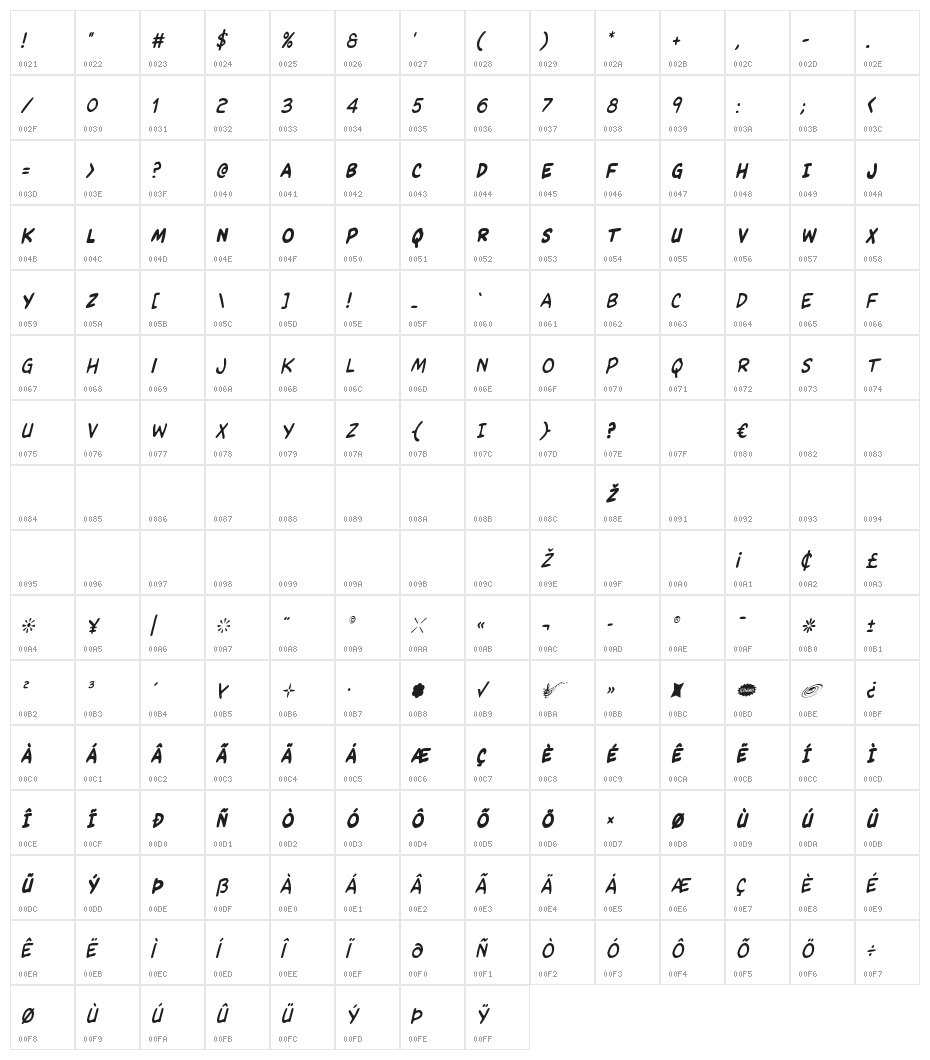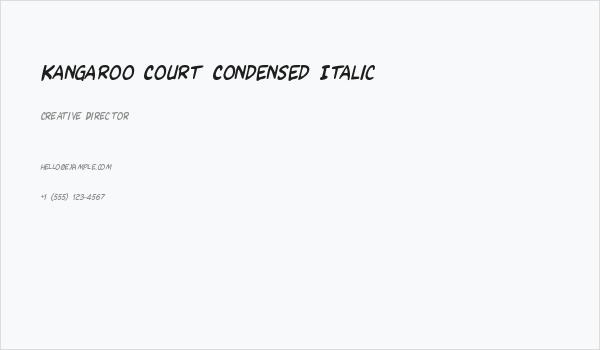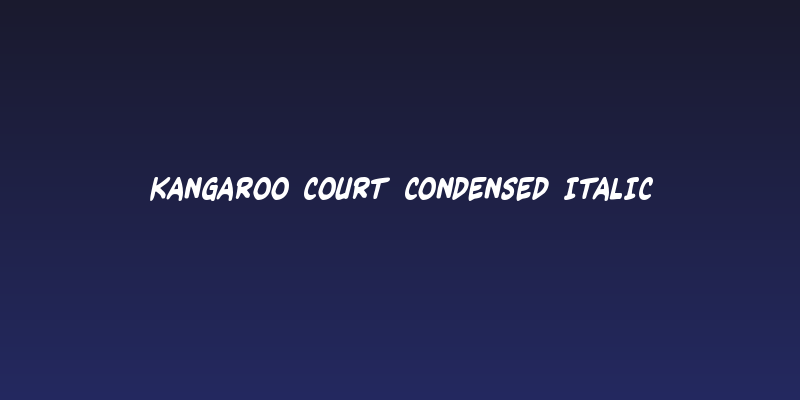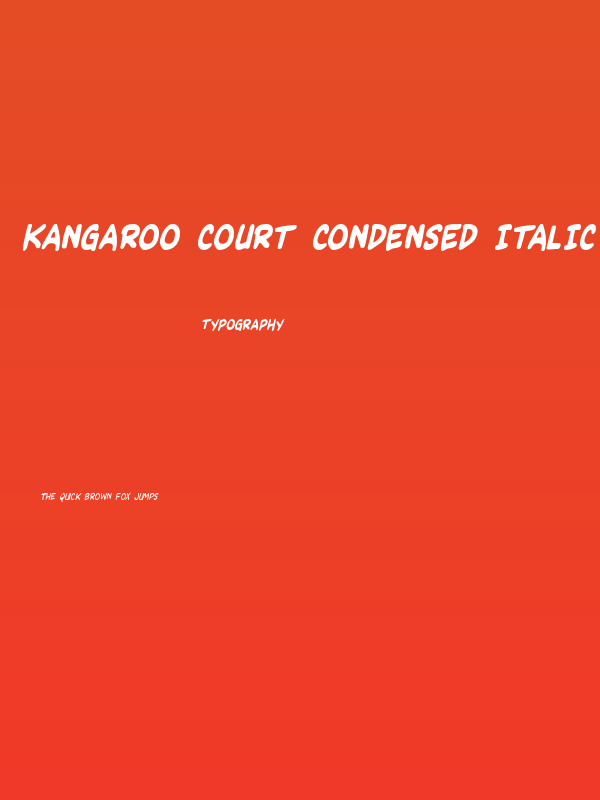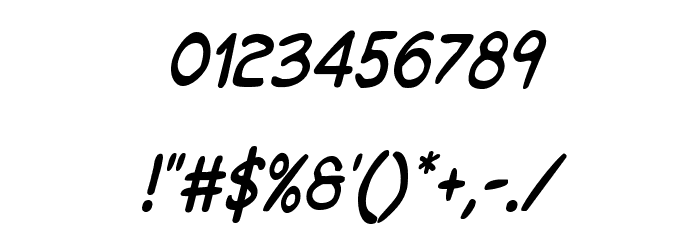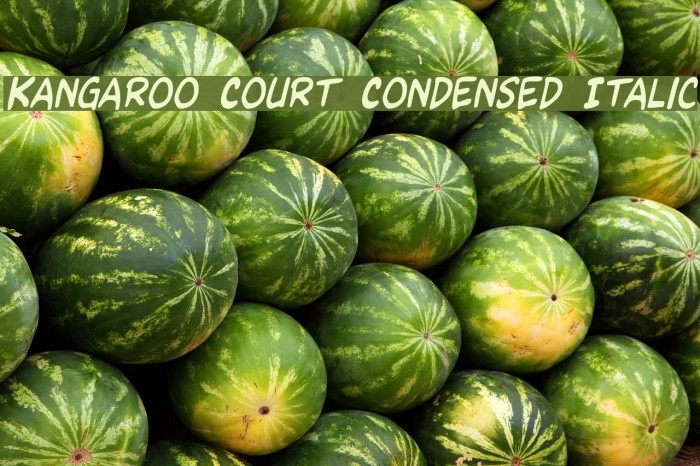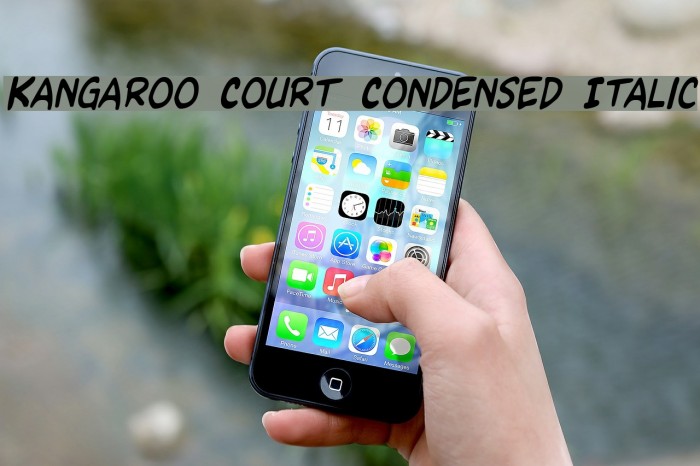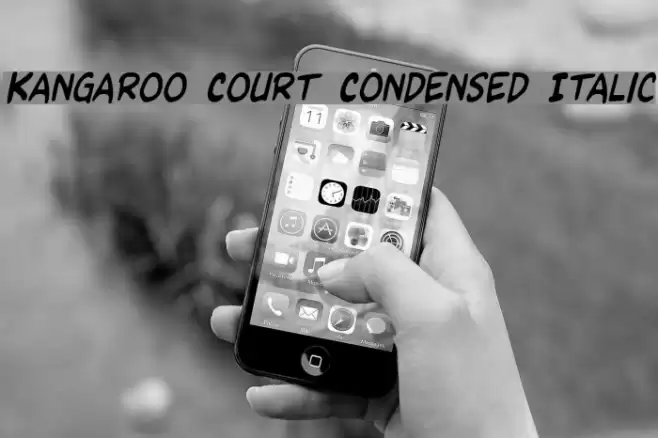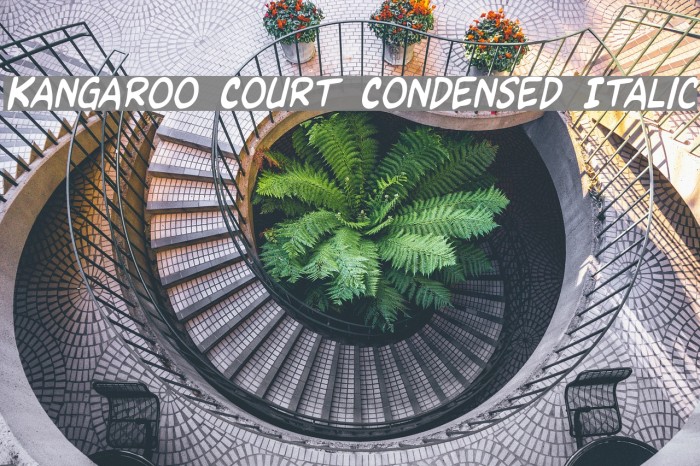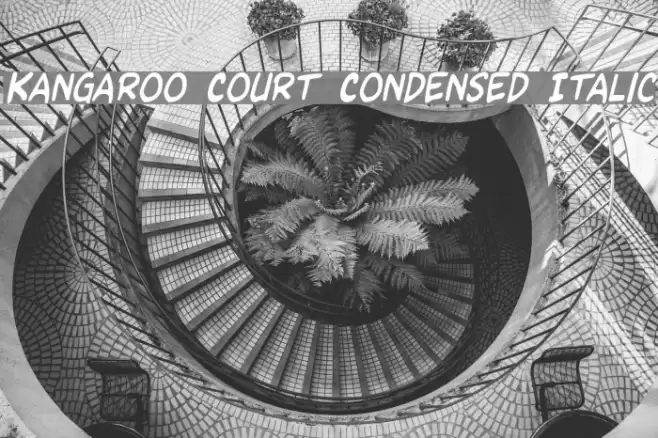
Kangaroo Court Condensed Italic Font
Kangaroo Court Condensed Italic Description
This font features a playful and energetic style with a condensed and italicized form. The letters are bold and slightly slanted, giving a sense of movement and dynamism. The strokes are consistent in thickness, providing a uniform appearance across all characters. The uppercase and lowercase letters maintain a cohesive look, while the numbers and special characters blend seamlessly with the overall design. This font's condensed nature makes it suitable for space-saving applications without sacrificing readability.
| Proposed Projects | Ideal for branding, posters, and headlines where a fun and energetic vibe is desired. |